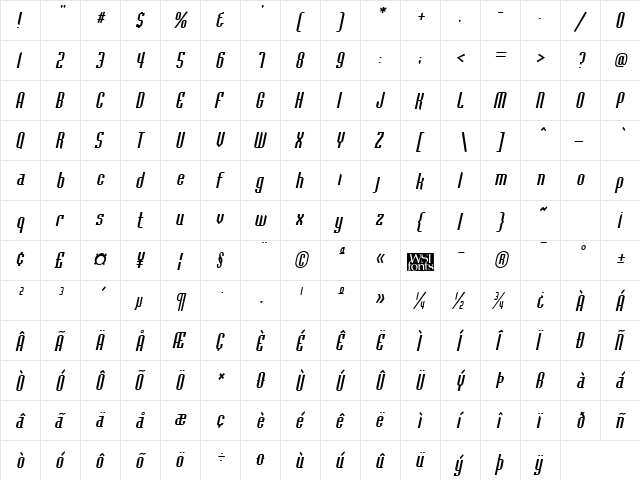
Baccus Italic
Design Context for Baccus Typeface
Baccus takes a measured approach to typography — its balanced proportions and neutral character make it a reliable workhorse for both digital and print work. Its italic angle brings a sense of urgency and motion to the letterforms.
Pro Tip: Use Baccus for emphasis, pull quotes, and subheadings where its slanted energy can add rhythm to the layout.